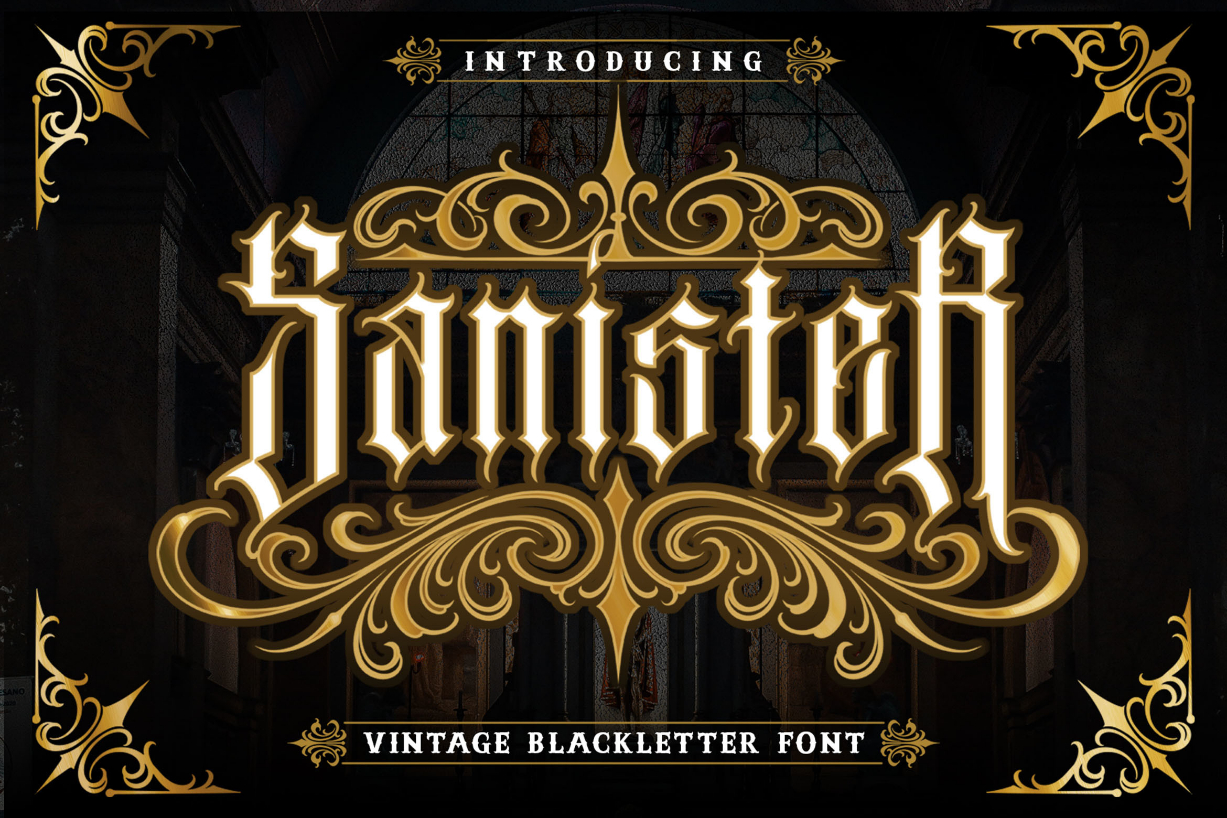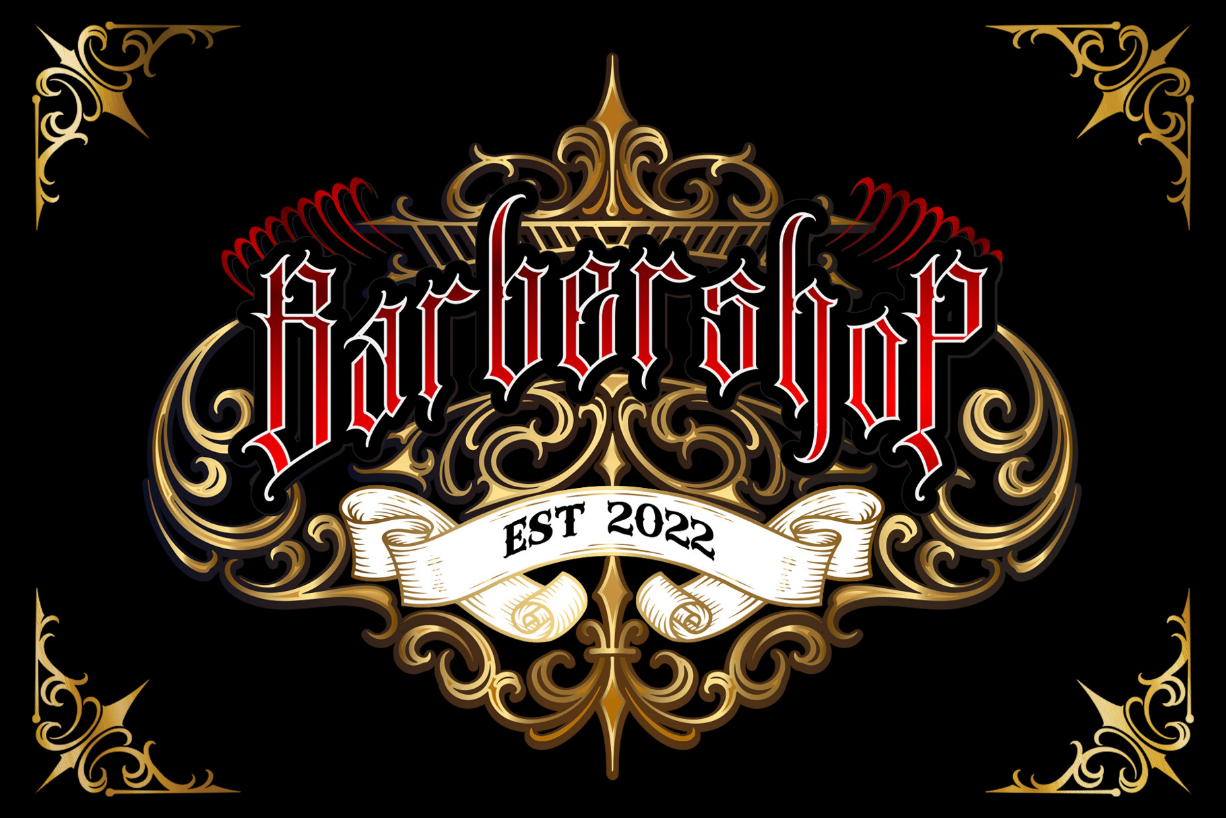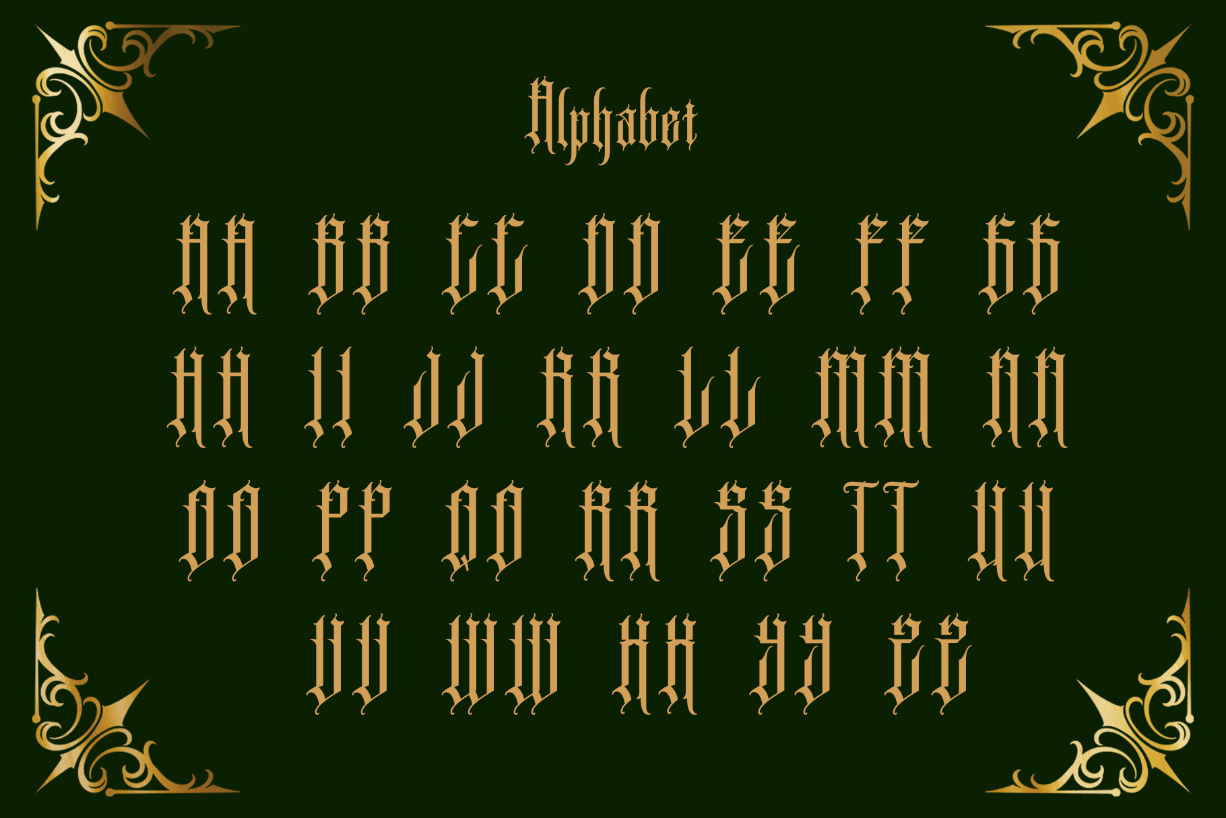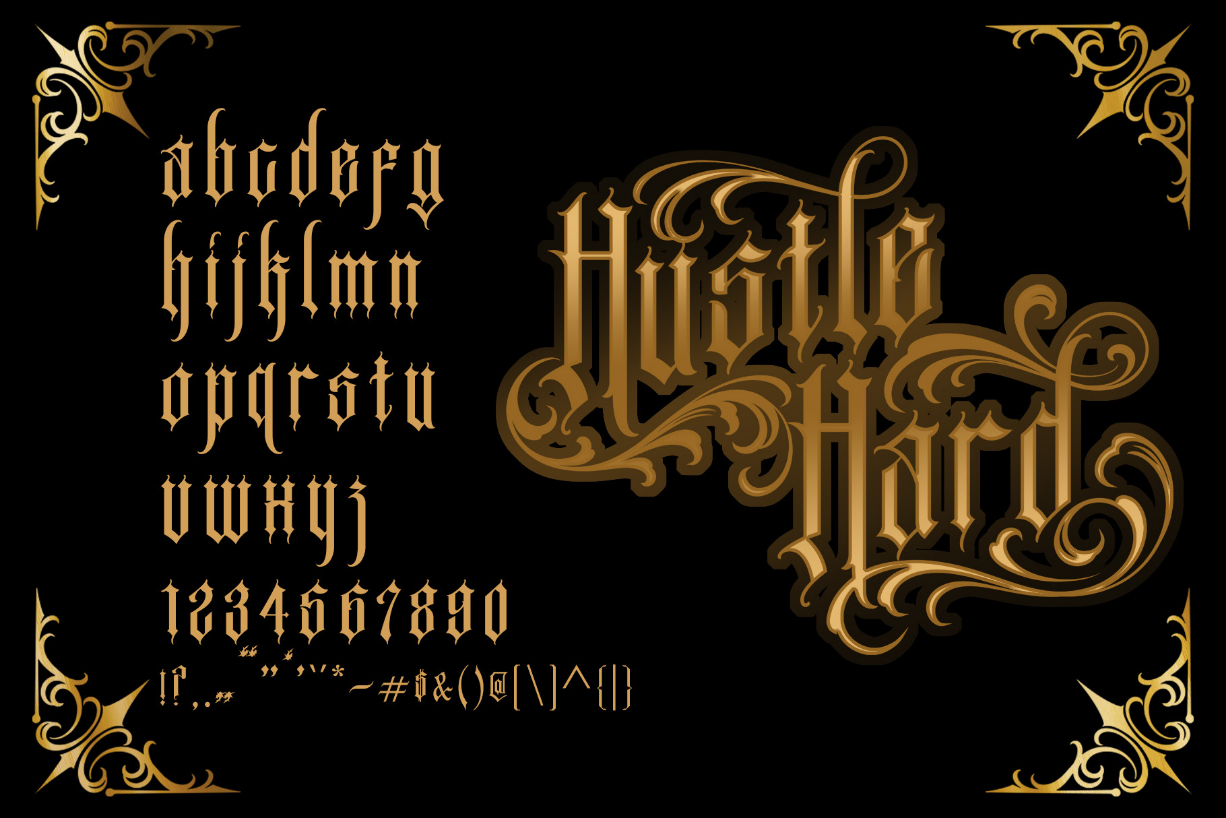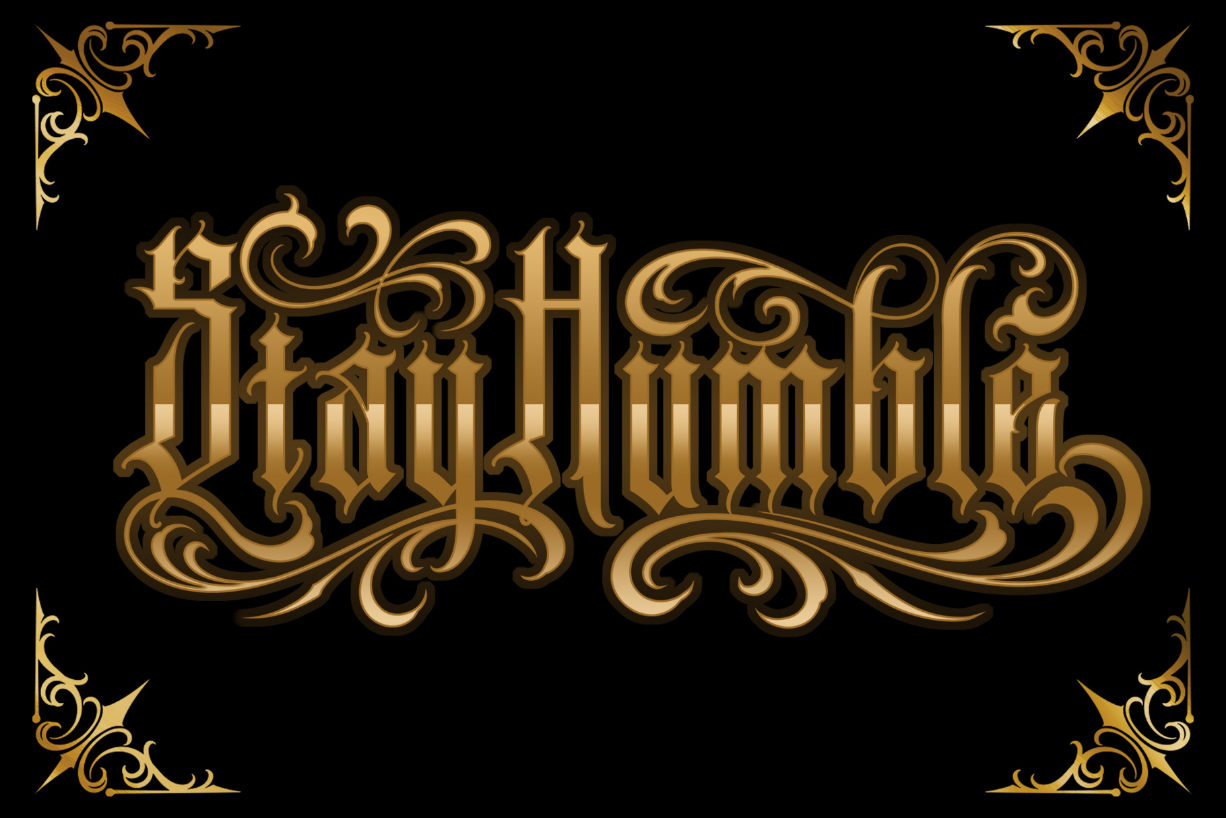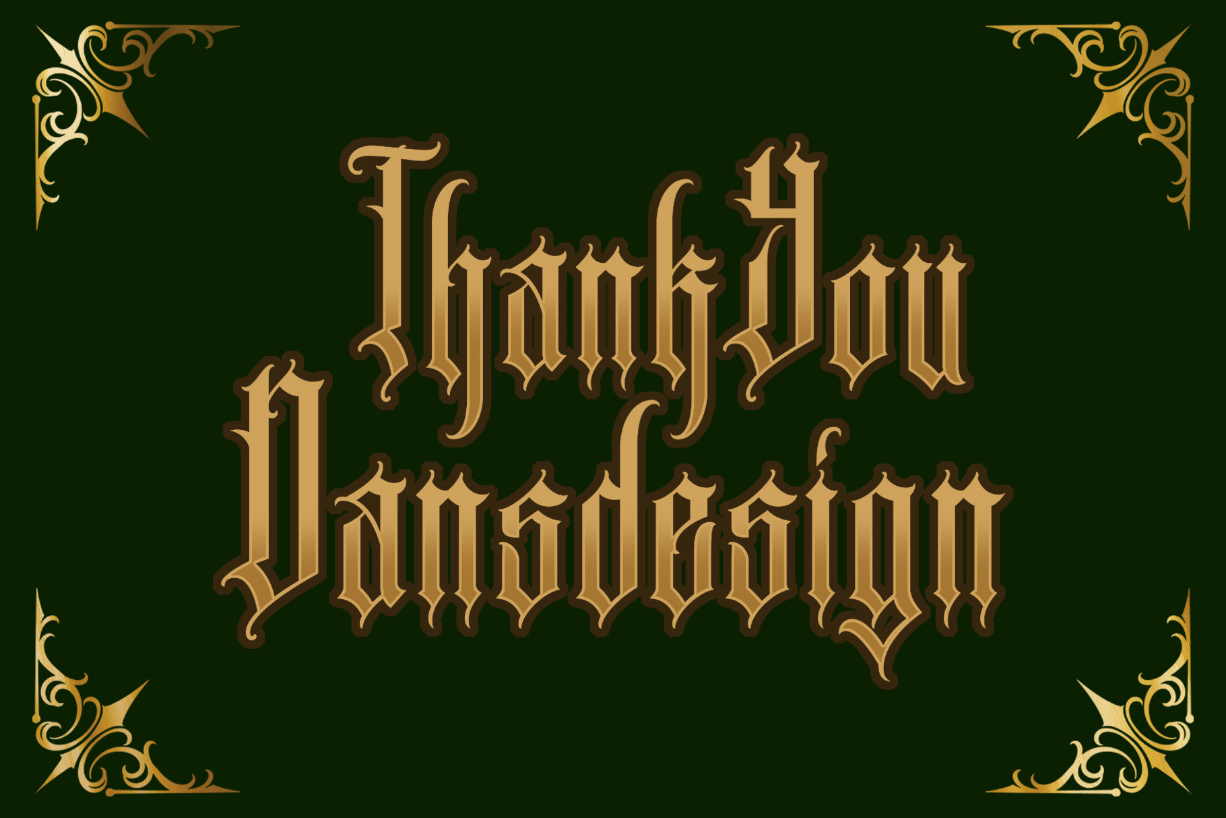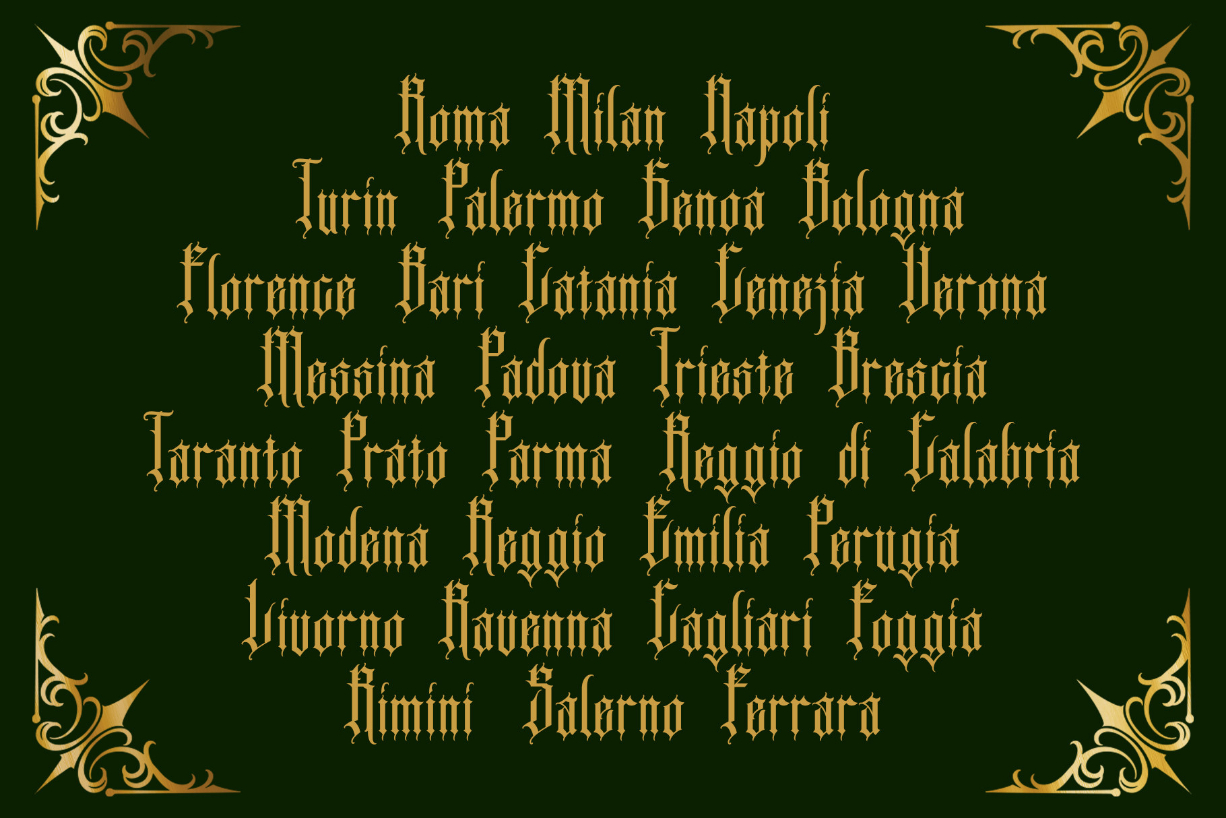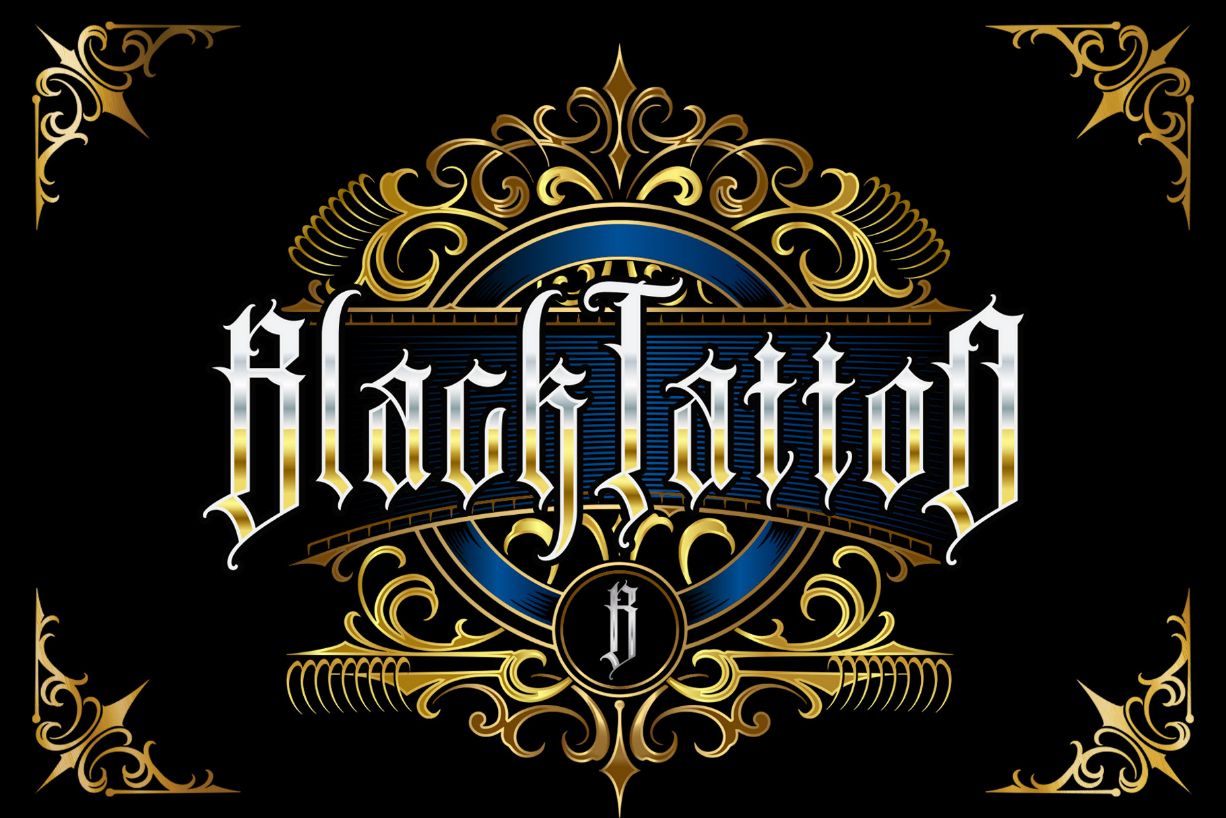
Sanister Font
About Sanister Font
Sanister is a vintage blackletter font that exudes a sense of Gothic elegance. Its intricate curves and sharp edges give it a sophisticated yet menacing aura. The font’s tall, angular letterforms are perfect for headlines and logos, especially for brands that want to convey a sense of tradition and history. Sanister’s unique style and attention to detail make it an excellent choice for any project that requires a touch of old-world charm.